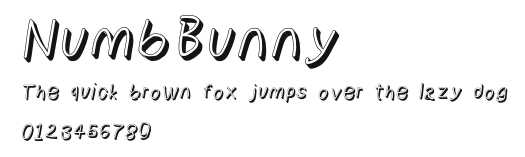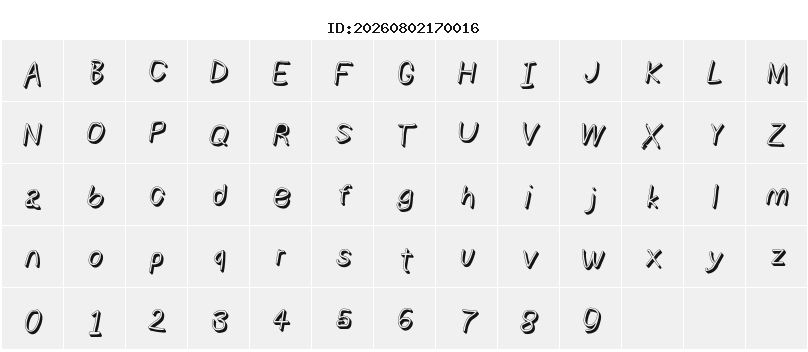
• Font Name: NumbBunny
• Designer: Robert Jablonski
• Manufacturer: Cannot Into Space Fonts
About NumbBunny.otf
NumbBunny.otf is a modern, elegant sans-serif font designed for ultimate readability and visual harmony. Perfect for branding, headlines, web design, and print materials.